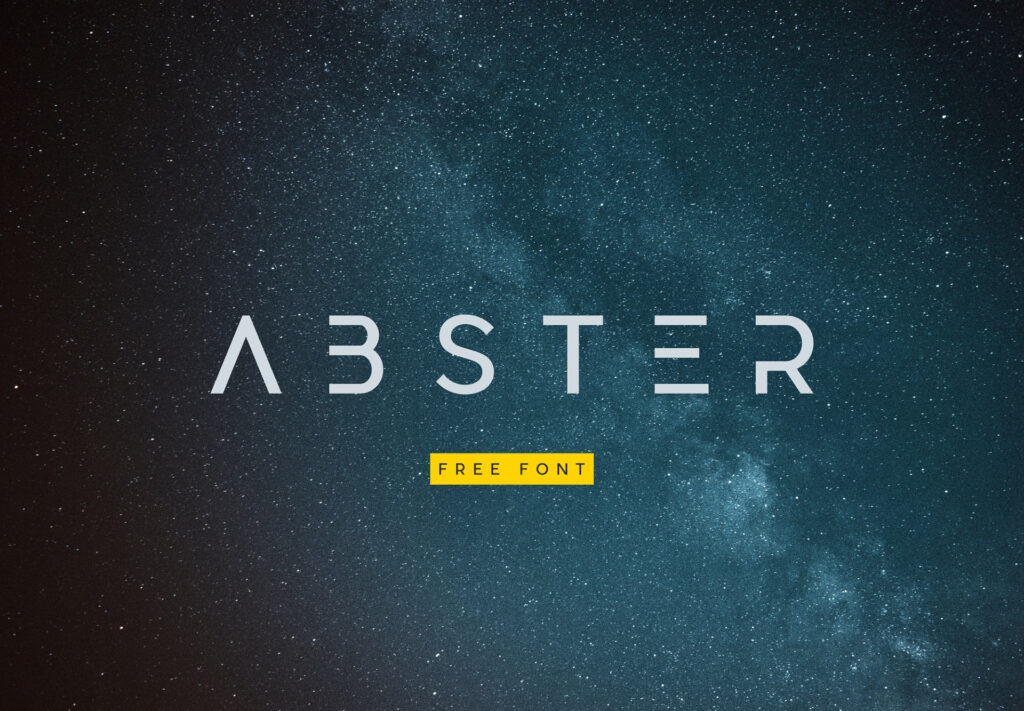
Geometric fonts are normally elegant and modern, and this free Abster typeface is an example. Its a simplified abstract styled typeface based on a geometric grid, and created as a personal project by Rachel Manch. She tried to reduce the size just enough for it to be readable and legible. The font is amazing for headlines, posters and your branding projects.
Abster Free Typeface